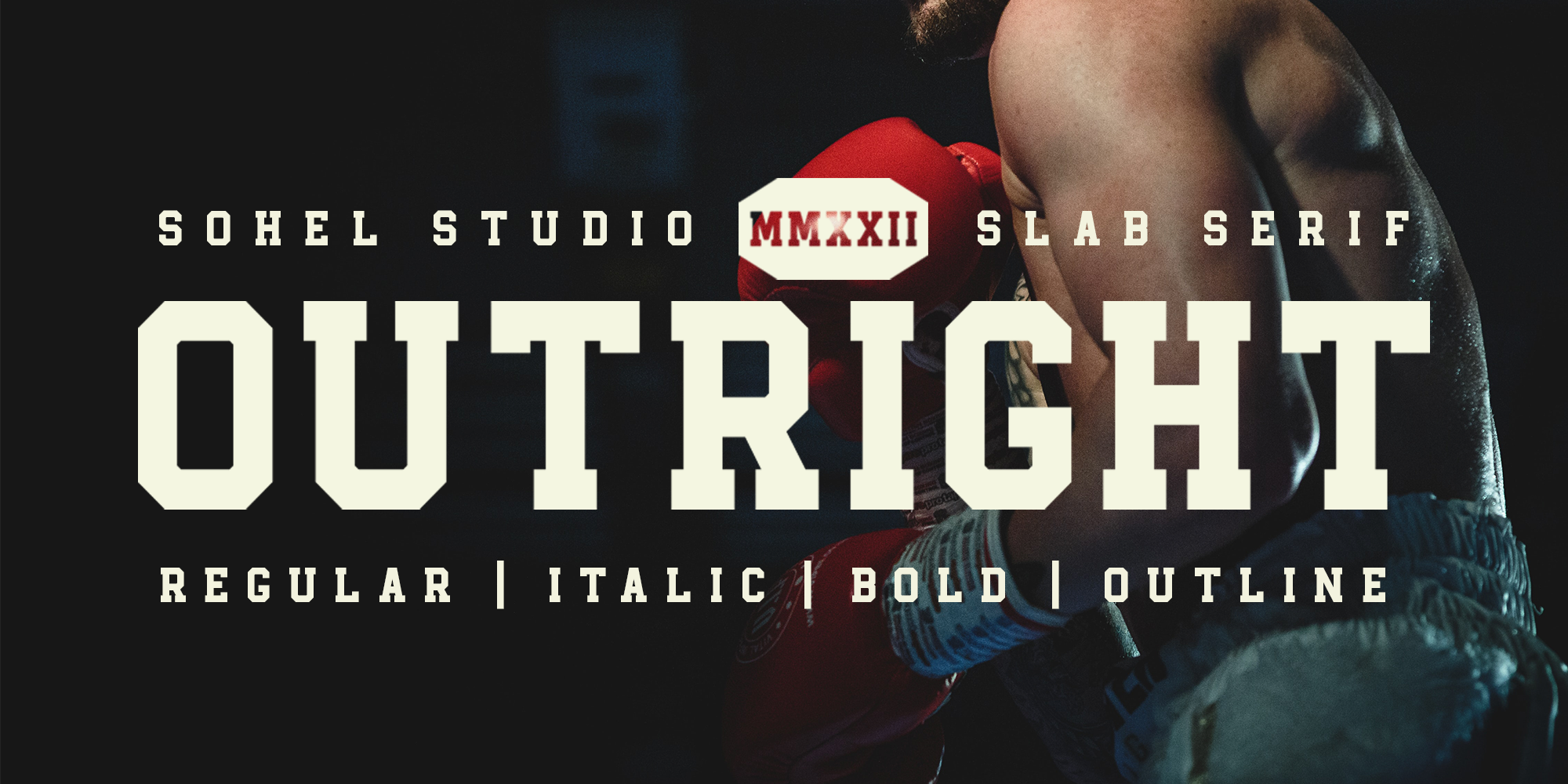
Outright Font is perfect for honest business communications, direct marketing campaigns, straightforward legal documents, transparent corporate branding, no-nonsense financial services, authentic lifestyle brands, candid journalism publications, frank political messaging, plain-spoken educational materials, honest customer service communications, direct sales presentations, and bold truth-telling brand statements.
This font is exciting because it embodies the refreshing power and authentic appeal of complete honesty, featuring boldly straightforward letterforms that communicate with the same direct clarity and uncompromising transparency found in leaders who tell the truth regardless of consequences and businesses that succeed by being completely upfront about their products, services, and values rather than hiding behind marketing spin or corporate doublespeak. The confidently direct character design reflects both the courage required for honest communication and the trust that comes from dealing with people who say exactly what they mean without hidden agendas or deceptive practices, creating typography that feels both refreshingly authentic and powerfully reliable. Each letter stands with the kind of honest strength and direct appeal that transforms ordinary text into declarations of integrity and invitations to genuine, transparent relationships.
The Outright Font family includes multiple weights from regular to bold, with corresponding italic styles, and comprehensive character sets featuring honest numerals, direct punctuation marks, and clean design elements that enhance clarity and readability without unnecessary ornamentation. Advanced versions may offer additional weight variations optimized for various applications, condensed options for efficient communication, and enhanced spacing that ensures maximum legibility across all honest communication contexts.
Whether you're developing transparent business branding, creating direct marketing materials, or designing straightforward communication content, Outright Font Free Download provides the honest authenticity and direct appeal your project needs to build genuine trust with audiences who appreciate transparency, honesty, and the refreshing experience of dealing with organizations that tell the truth and deliver exactly what they promise. This typeface transforms ordinary text into honest declarations that honor both the courage of transparency and the trust that comes from authentic communication. The font's direct character makes it ideal for brands and organizations that prioritize honesty and transparency over marketing manipulation. Honest business leaders and transparent communication advocates will appreciate how this font brings authentic directness to their work with its genuinely straightforward and honestly powerful character that builds trust through transparency.